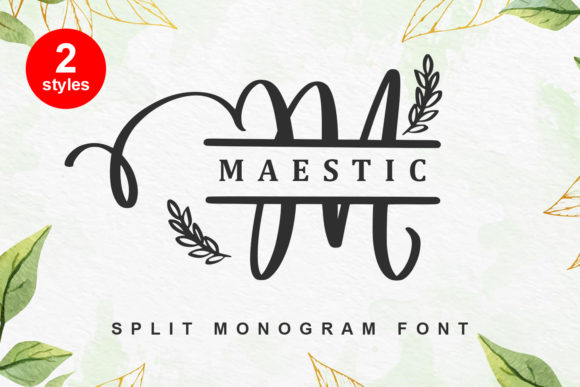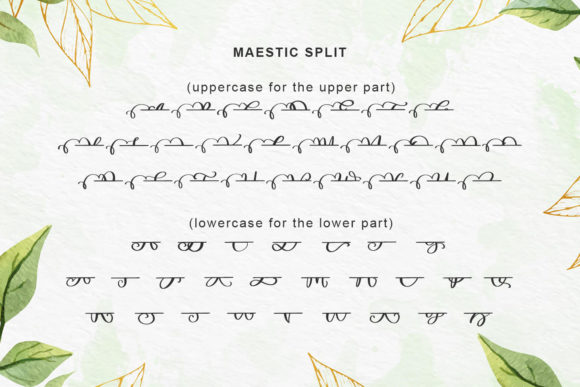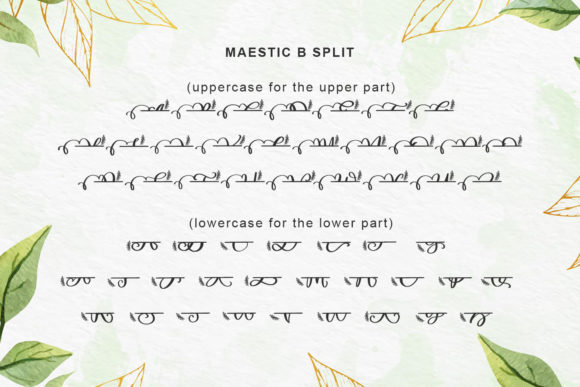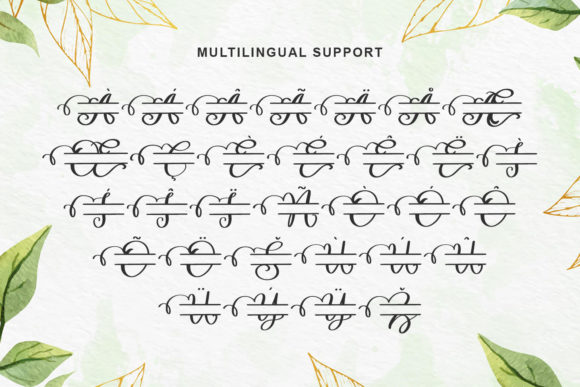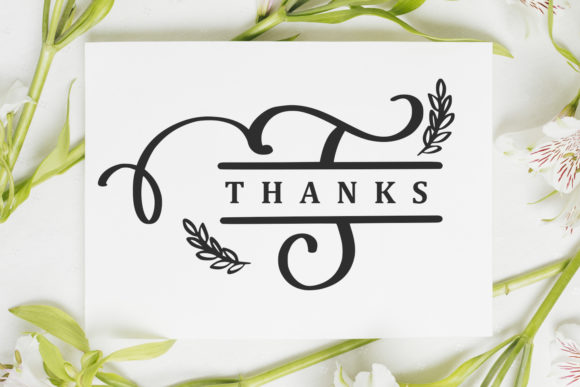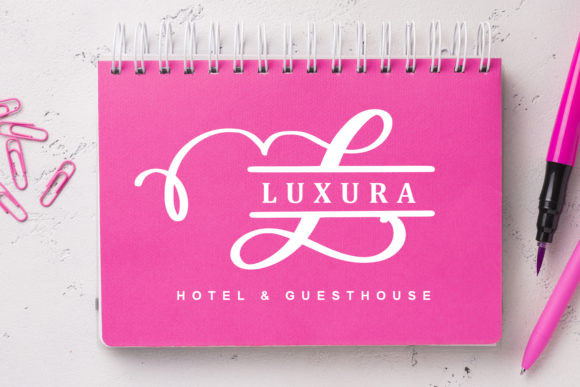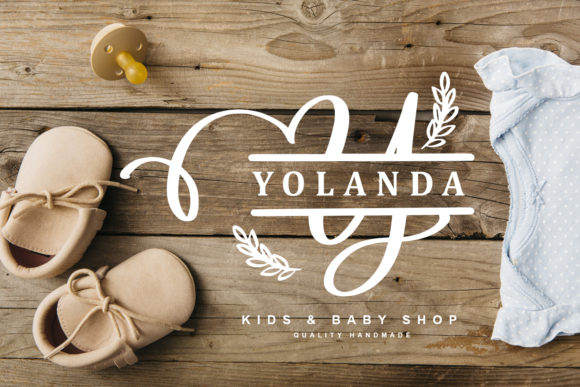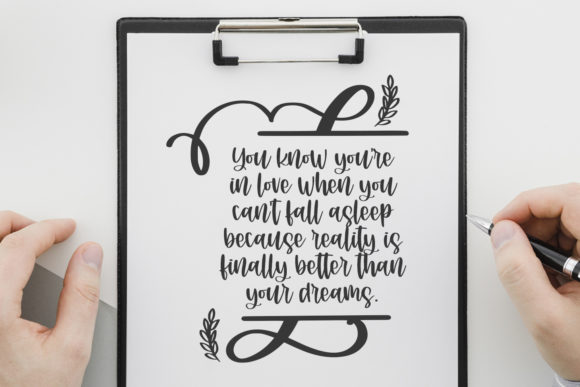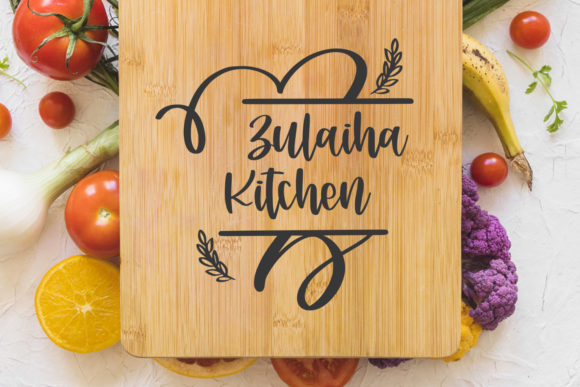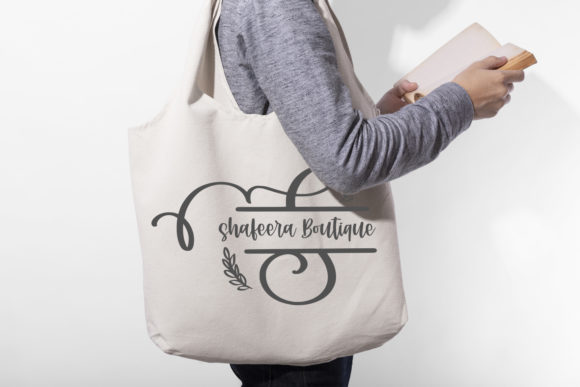
Maestic Font
About Maestic Font
Maestic is a sophisticated monoline handwritten font. It will elevate a wide range of design projects to the highest level, be it branding, headings, wedding designs, invitations, signatures, logos, labels, and much more!